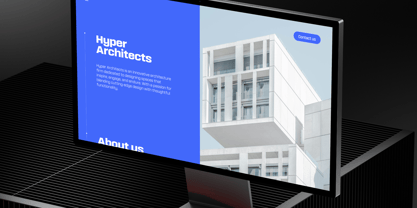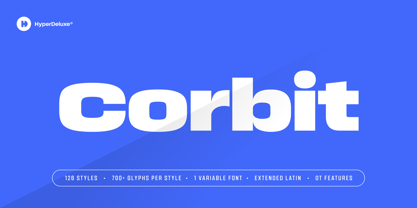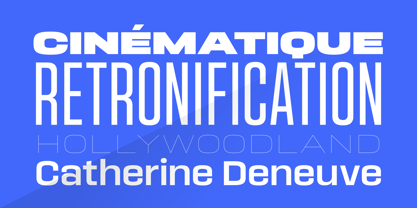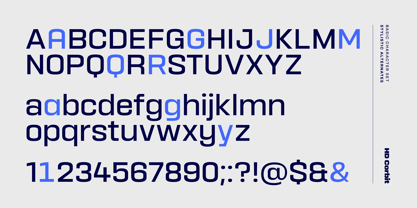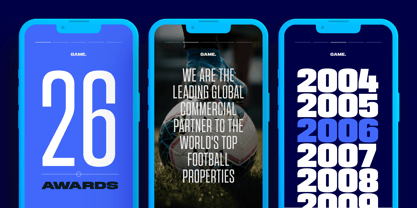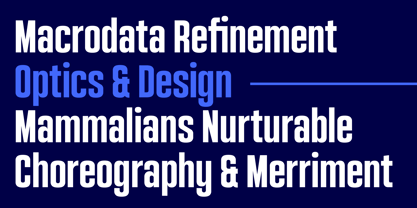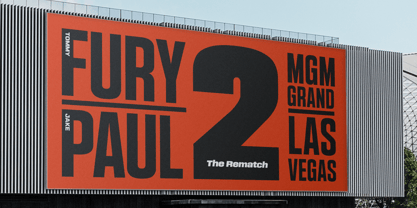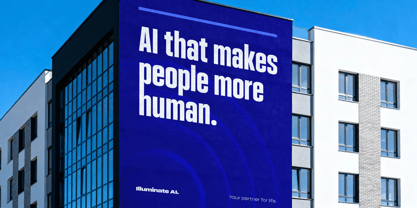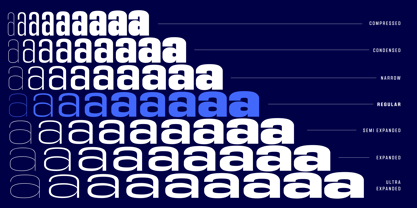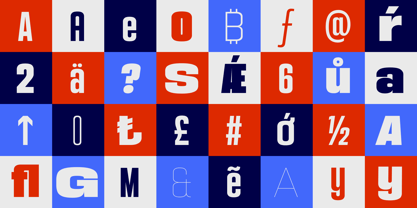
HD Corbit
von HyperDeluxe
Die Schriftfamilie HD Corbit wurde von Dan Jones entworfen und von HyperDeluxe veröffentlicht. HD Corbit enthält 127 Stile und Familienpaketoptionen. Mehr über diese Familie
Corbit is a versatile super-family built for modern, demanding typography. With 126 styles across 7 widths, plus a single three-axis variable font, it offers exceptional flexibility equally across print and on screen. Corbit’s design combines squarish, confident letterforms with a subtle tech-forward edge, resulting in a voice that feels contemporary without becoming cold or overly futuristic. Carefully controlled proportions, flat terminals, and consistent rhythm make it a true workhorse sans. Designed to perform equally well in print and on screen, HD Corbit excels in UI, product design, editorial, and corporate identities where clarity, efficiency, and personality need to coexist. Its broad width range and variable capabilities allow designers to fine-tune tone and density while maintaining a cohesive typographic system. Corbit is practical, adaptable, and quietly characterful, a reliable foundation with just the right amount of edge.